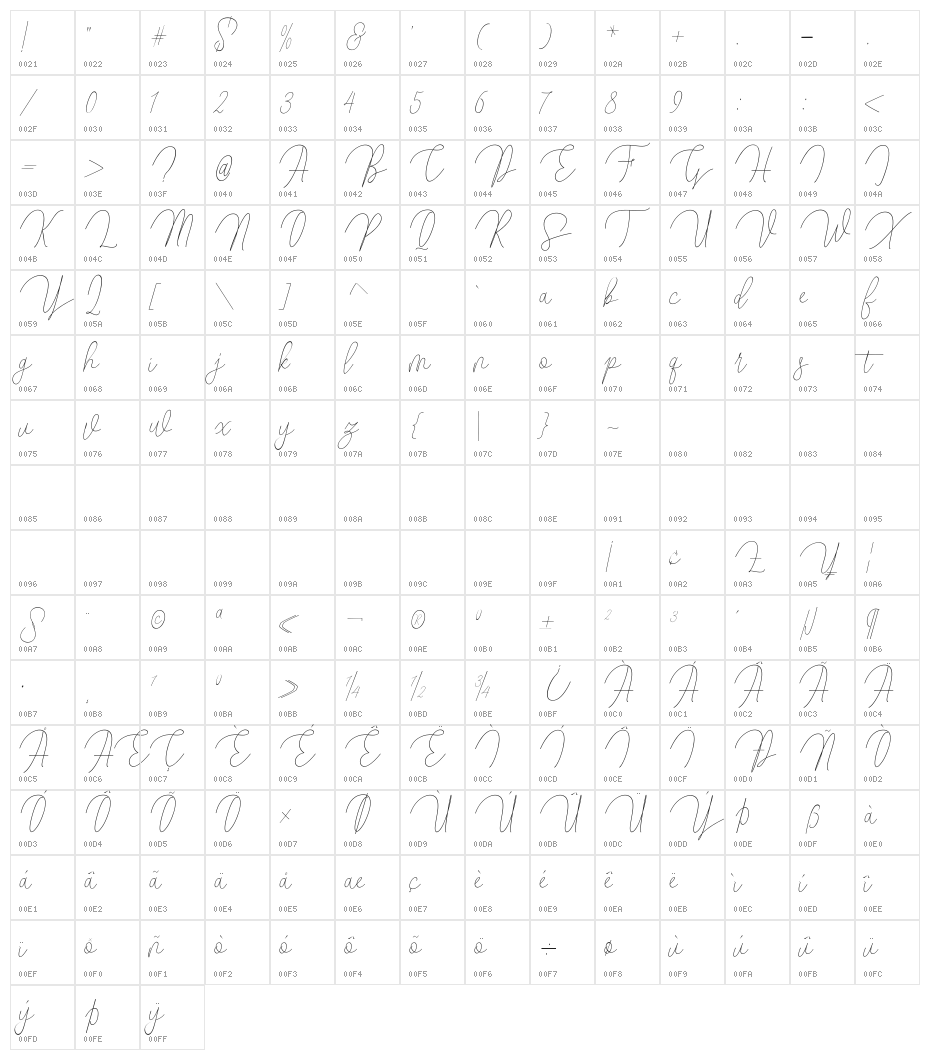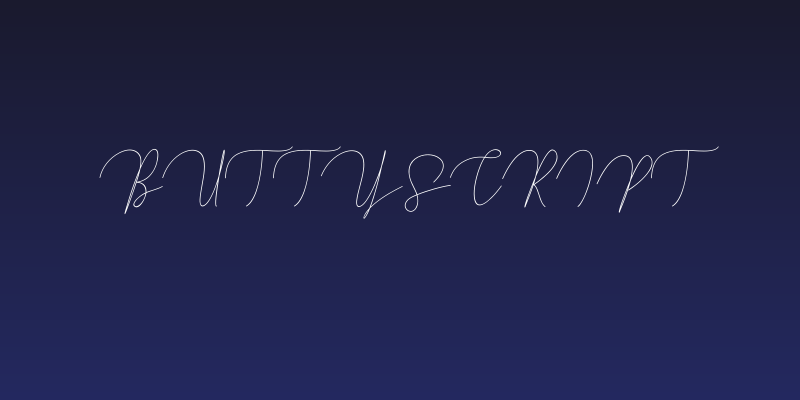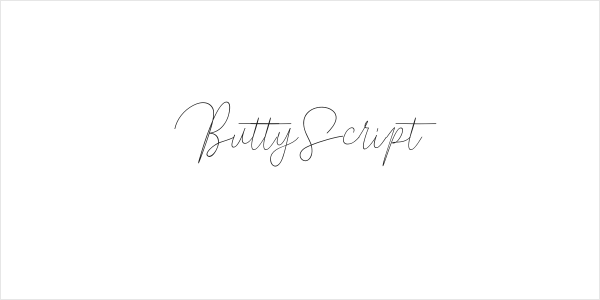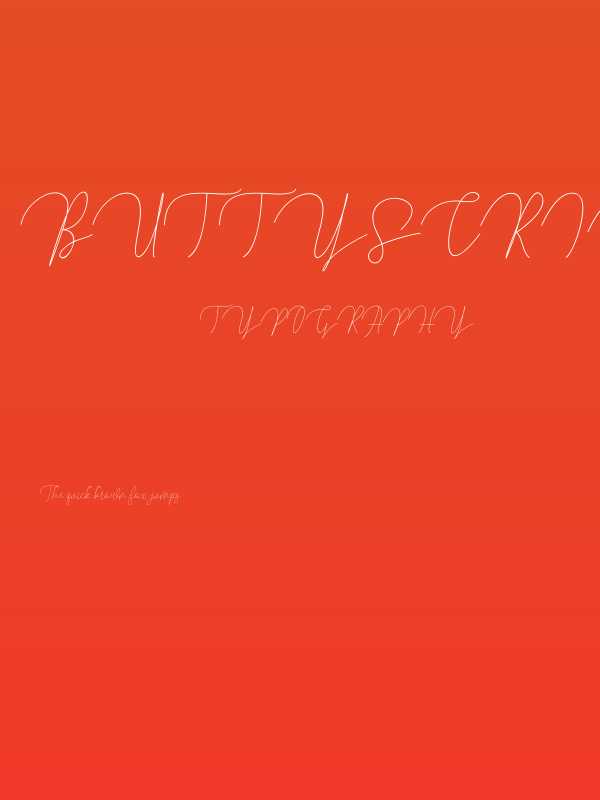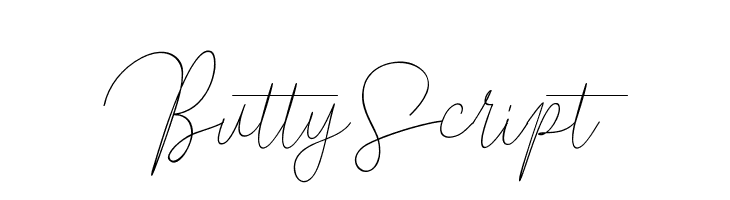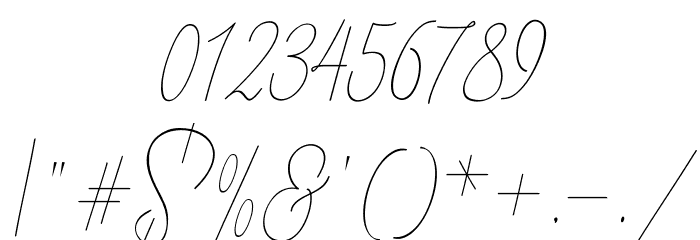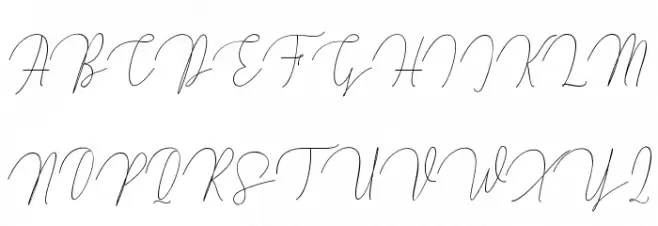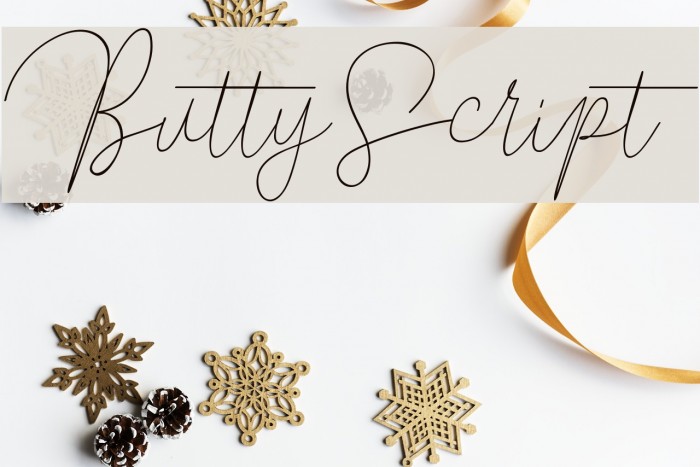
ButtyScript Font
ButtyScript Description
This font exudes elegance with its flowing, cursive style that mimics the fluidity of handwriting. The characters are connected in a seamless manner, giving it a sophisticated and graceful appearance. The uppercase letters are slightly more ornate, with gentle curves and loops, while the lowercase letters maintain a consistent flow. The numerals and special characters complement the script style, maintaining the same thin, delicate strokes. This font is ideal for projects that require a personal touch, such as invitations, greeting cards, or branding materials that aim to convey elegance and sophistication.
| Overall Style | Elegant |
| Use Case | Invitations, Branding, Stationery |
| Proposed Projects | Ideal for wedding invitations, personal branding, elegant stationery, and greeting cards. |